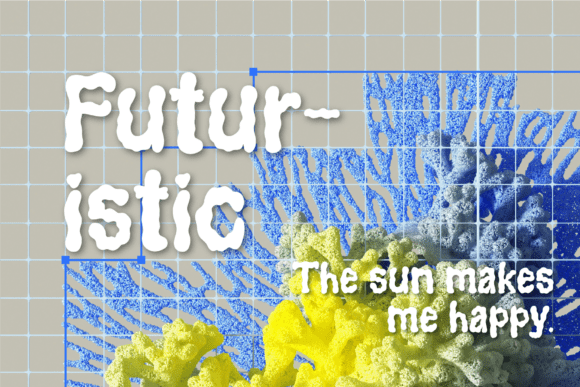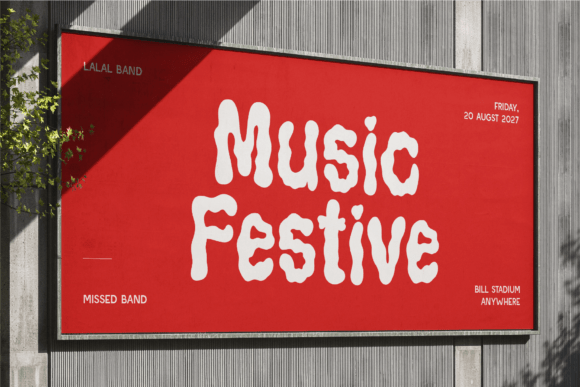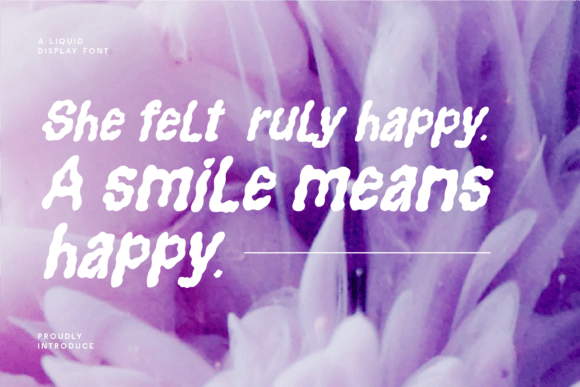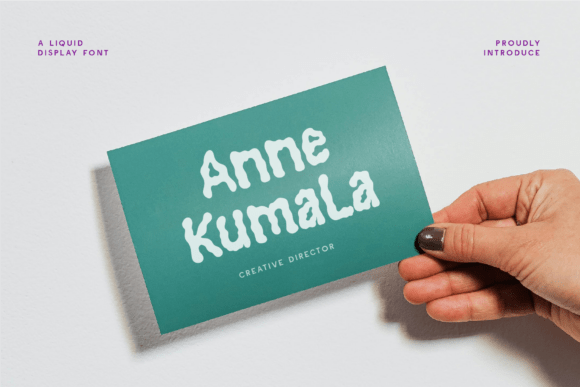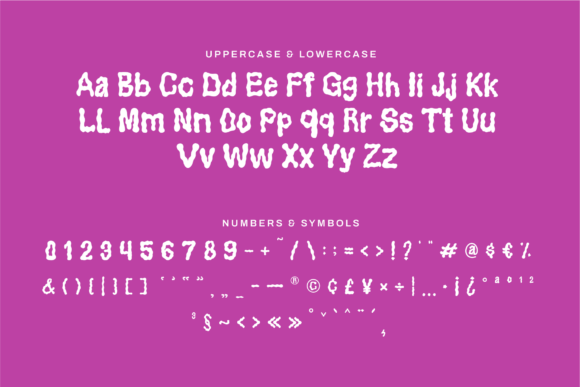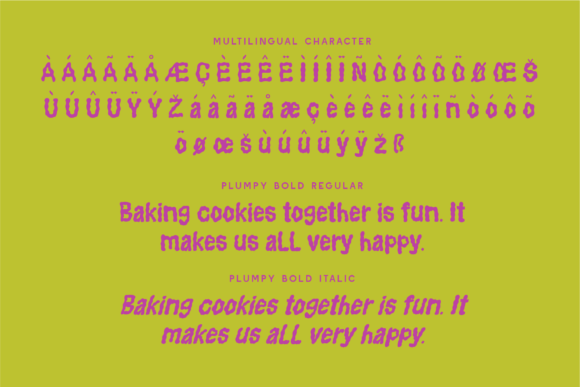
Introduction to Plumpy Bold Font
**Plumpy Bold** – A Fluid and Bold Liquid Display Font Dive into creativity with Plumpy Bold, a striking display font inspired by the freeform beauty of liquid movement.
With its blobby shapes, wavy lines, and organic flow, Plumpy Bold delivers a bold yet playful presence that’s impossible to ignore Designed to grab attention, this font is perfect for branding, poster headlines, festival graphics, experimental design, album covers, creative merchandise, or any project that craves a dynamic and fluid vibe.
Key Features of Plumpy Bold Font
Why Choose Plumpy Bold Font?